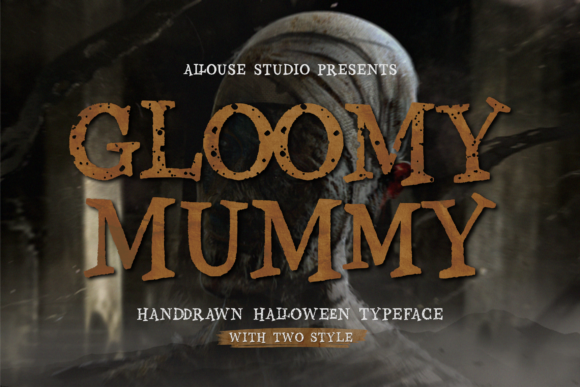
Gloomy Mummy Font
Prepare yourself to be spellbound by the captivating allure of Gloomy Mummy, a font that will ignite your imagination and leave an unforgettable impression. This extraordinary display font exudes an air of boldness and intrigue, its thick and rugged letters exuding a raw and primal energy.
With Gloomy Mummy, you'll embark on a thrilling adventure into the realm of creativity, where your designs will transcend the ordinary and embrace the extraordinary. Unleash your inner artist and explore a world of possibilities, from captivating t-shirts and eye-catching sportswear to logos that command attention and advertisements that leave a lasting impact.
Whether you're crafting bold and assertive headlines, designing captivating posters, or creating clothing that makes a statement, Gloomy Mummy will be your steadfast companion, empowering you to express your unique vision and captivate your audience.
This font is a masterpiece crafted with meticulous attention to detail, ensuring that every letterform possesses a distinct character and unwavering strength. Its rough edges and bold strokes evoke a sense of untamed spirit, inviting you to break free from convention and embrace the allure of the unconventional.
Immerse yourself in the captivating world of Gloomy Mummy and experience the thrill of creating designs that resonate with your audience on a profound level. Let this font be your muse, inspiring you to push the boundaries of creativity and leave an indelible mark on the world.